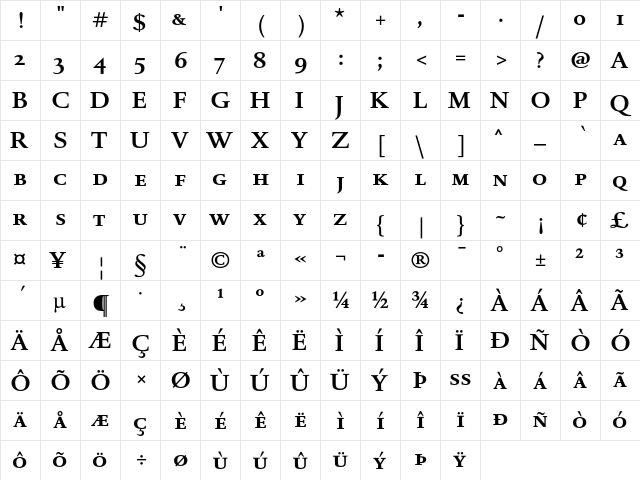
DTL Romulus T Caps Bold
| Style | T Caps Bold |
Design Context for DTL Romulus Typeface
DTL Romulus offers clean, dependable letterforms without strong stylistic allegiance, making it a practical choice for designers who need flexibility. The heavy weight commands attention and anchors typographic hierarchies.